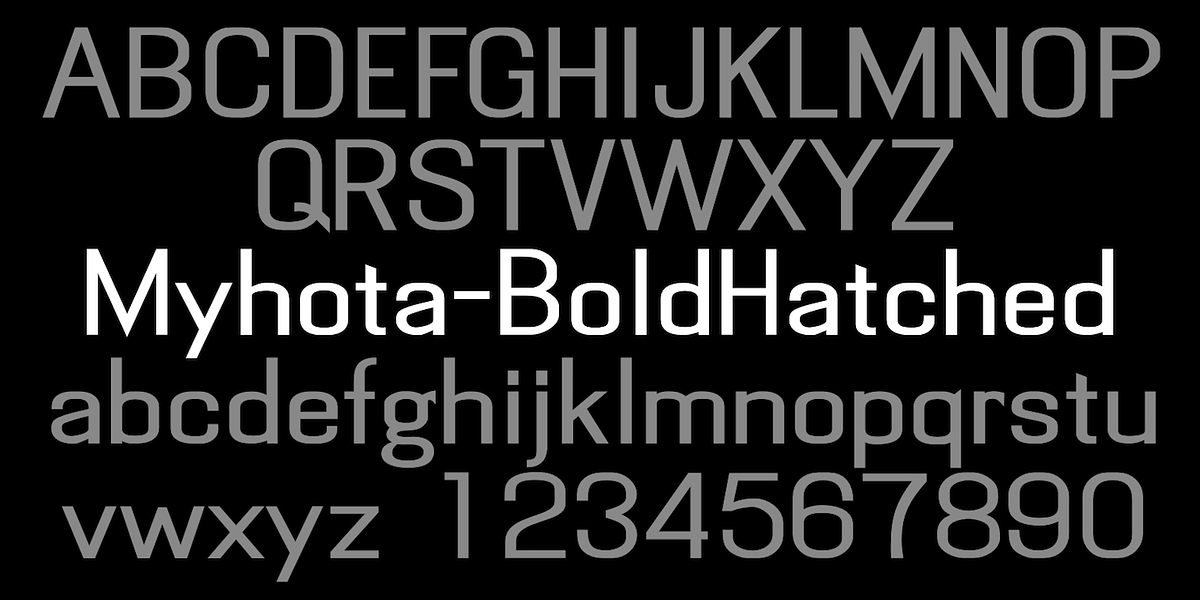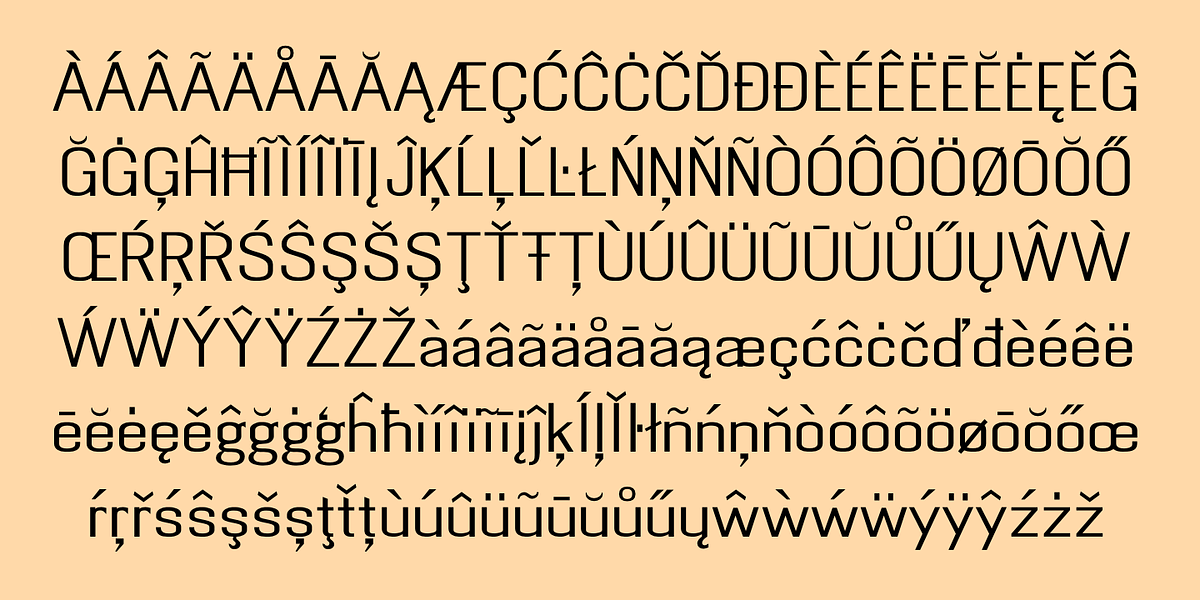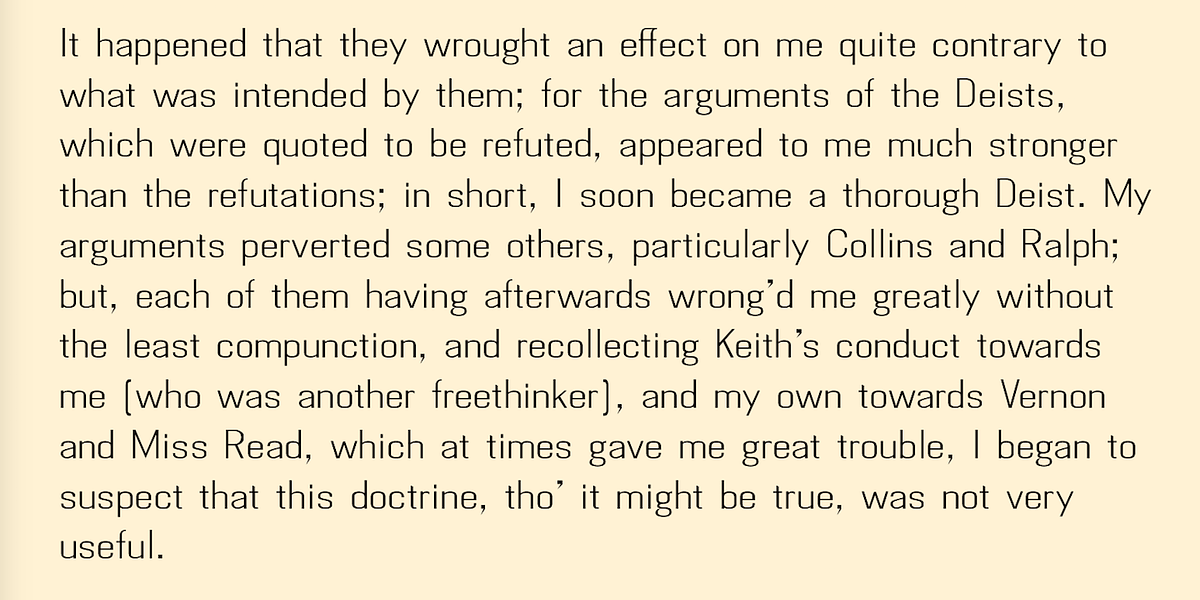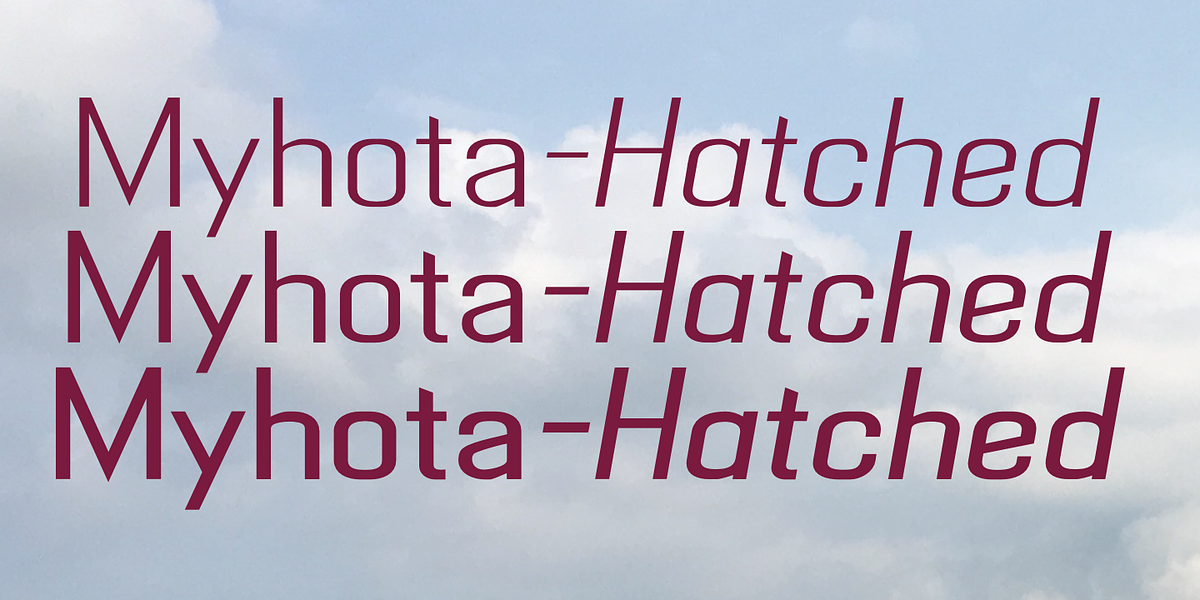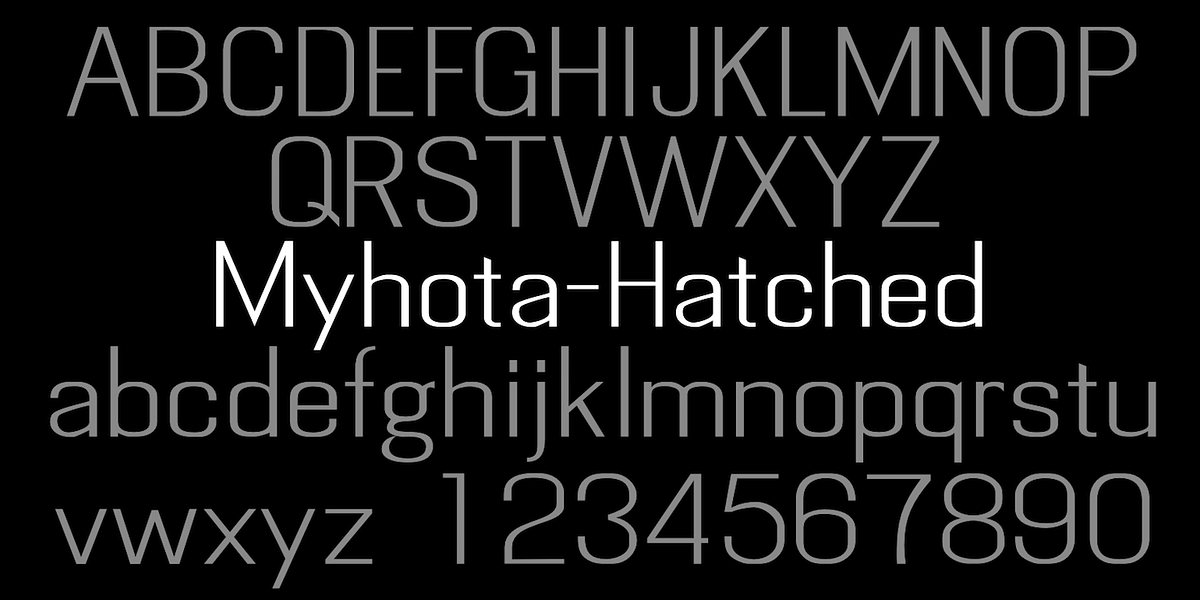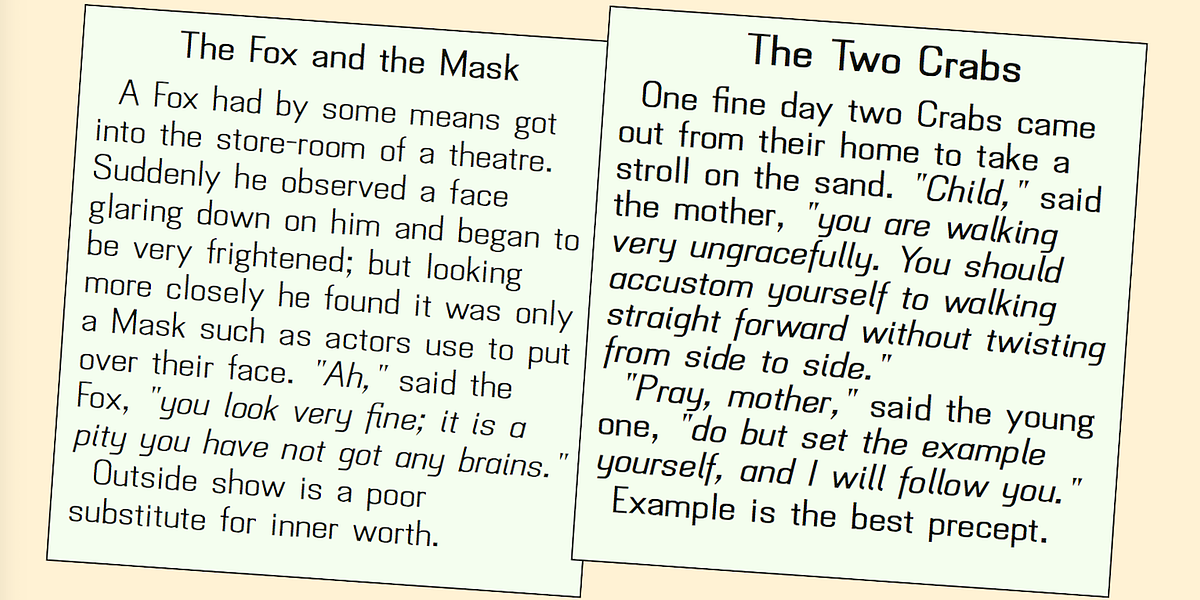
MyhotaHatched
Myhota-Hatched is a geometric sans serif font designed for readability. It features squarish letterforms and comes in regular, bold, and medium weights. The angled design adds a touch of modernity.